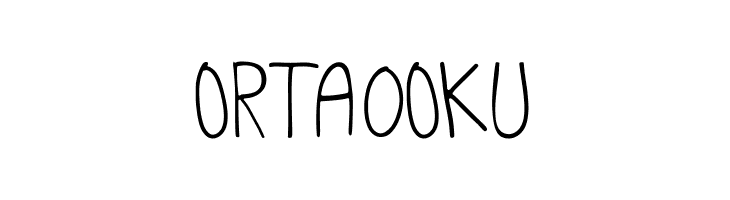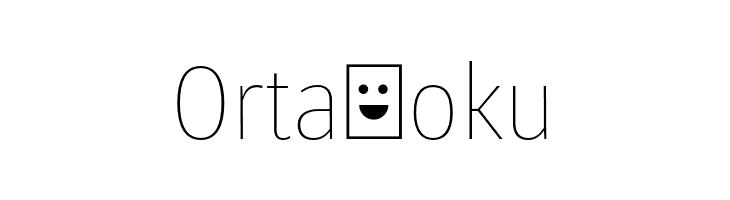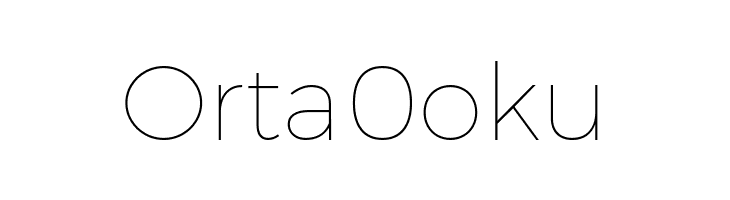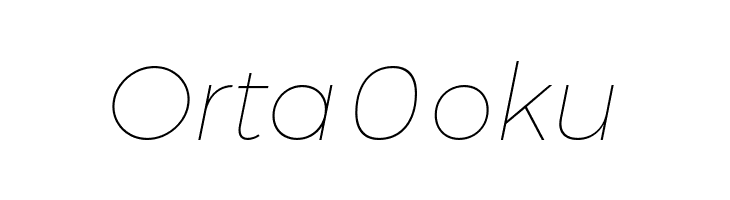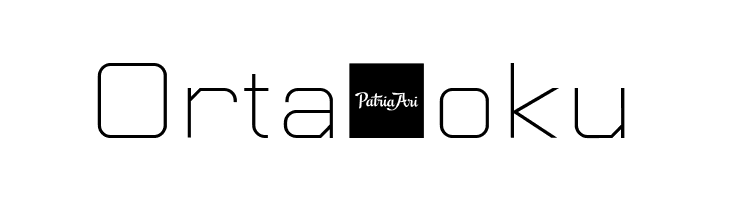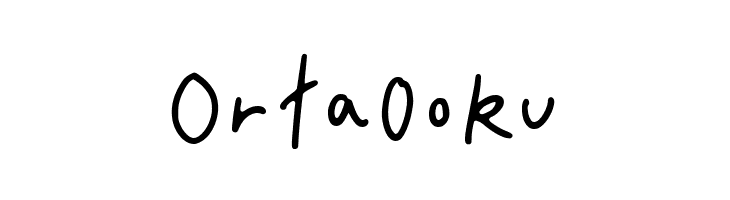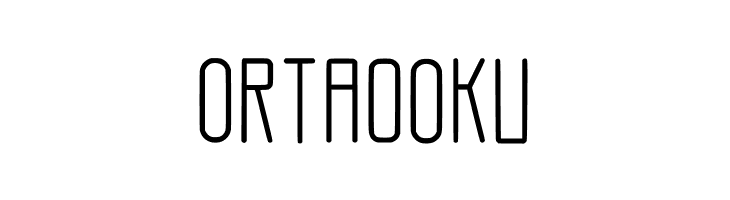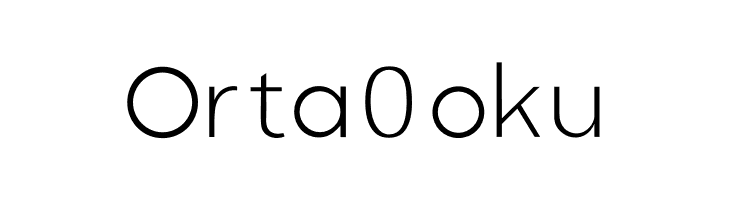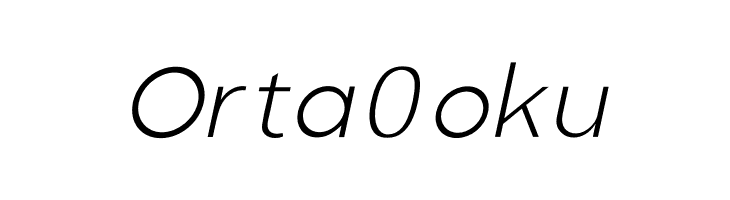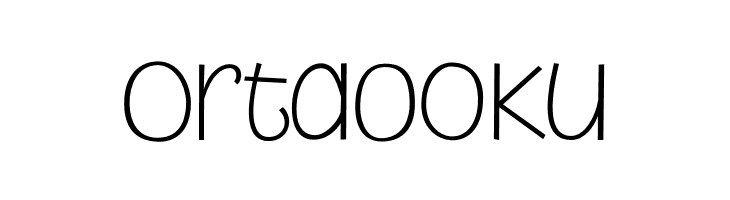
A playful, thin, handwritten font with a casual and whimsical style.
A thin, modern font with clean lines and elegant simplicity.
A thin, modern sans-serif font with a clean and elegant design.
A sleek, modern thin italic font with a minimalist and elegant design.
A thin, geometric font with a modern and minimalist design.
A playful, thin, handwritten font with a casual and friendly style.
A sleek, minimalistic font with thin, elongated letterforms and consistent stroke thickness.
A modern, minimalist font with thin strokes and rounded edges.
A sleek, thin, and italicized font with a modern aesthetic.
A whimsical, thin font with playful, elongated letterforms and consistent stroke width.